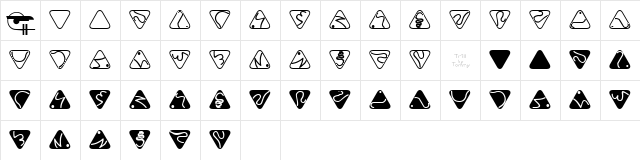
Trill Normal
Design Context for Trill Typeface
Trill is a composed and adaptable typeface that performs quietly and consistently across a wide range of design contexts.